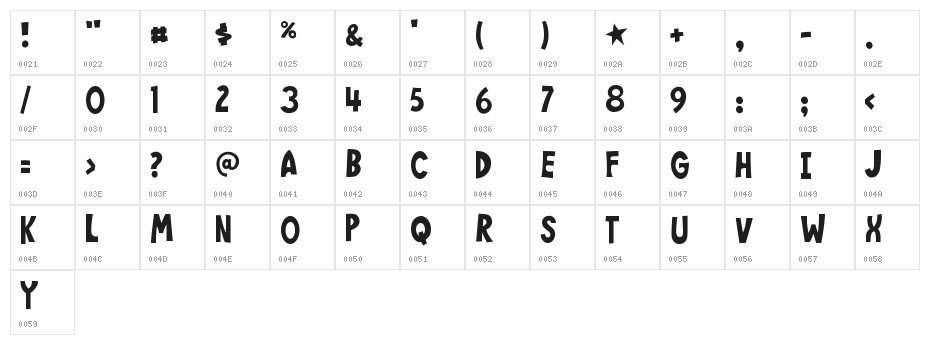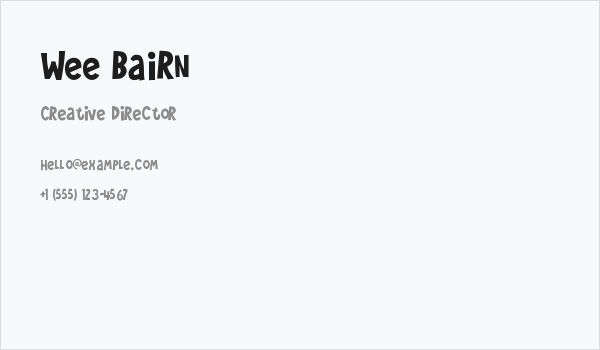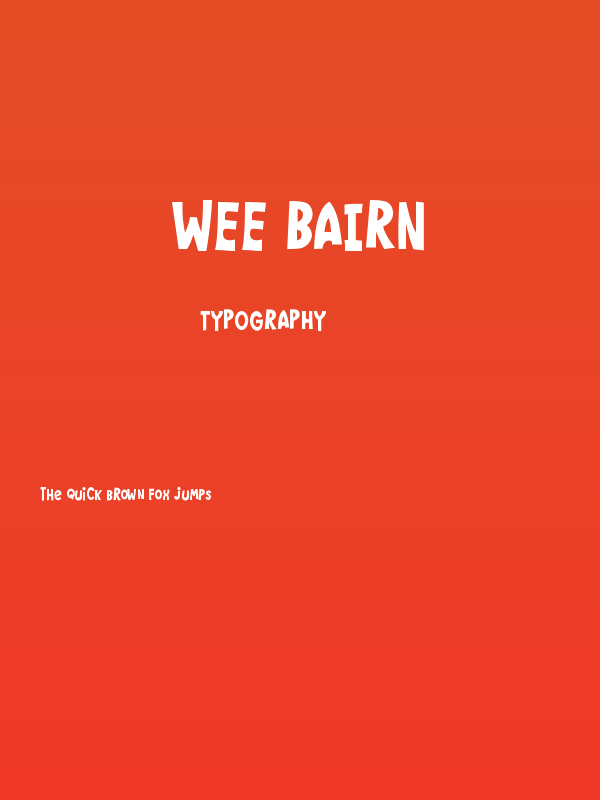
Wee Bairn Font
Wee Bairn Description
This playful and bold font features a whimsical and slightly irregular design, giving it a hand-drawn appearance. The characters are thick and rounded, with a consistent stroke width that adds to its boldness. The uppercase and lowercase letters maintain a uniform style, while the numbers and special characters are equally expressive. This font exudes a fun and informal vibe, making it ideal for creative projects that require a touch of personality and charm.
| Proposed Projects | Great for children's books, playful branding, party invitations, and creative posters. |